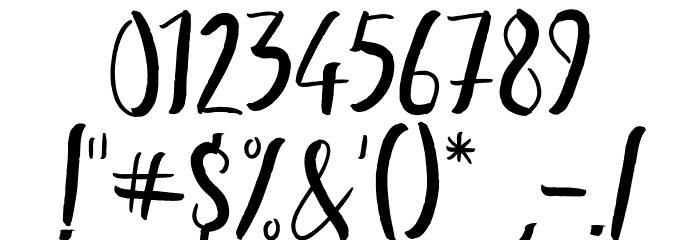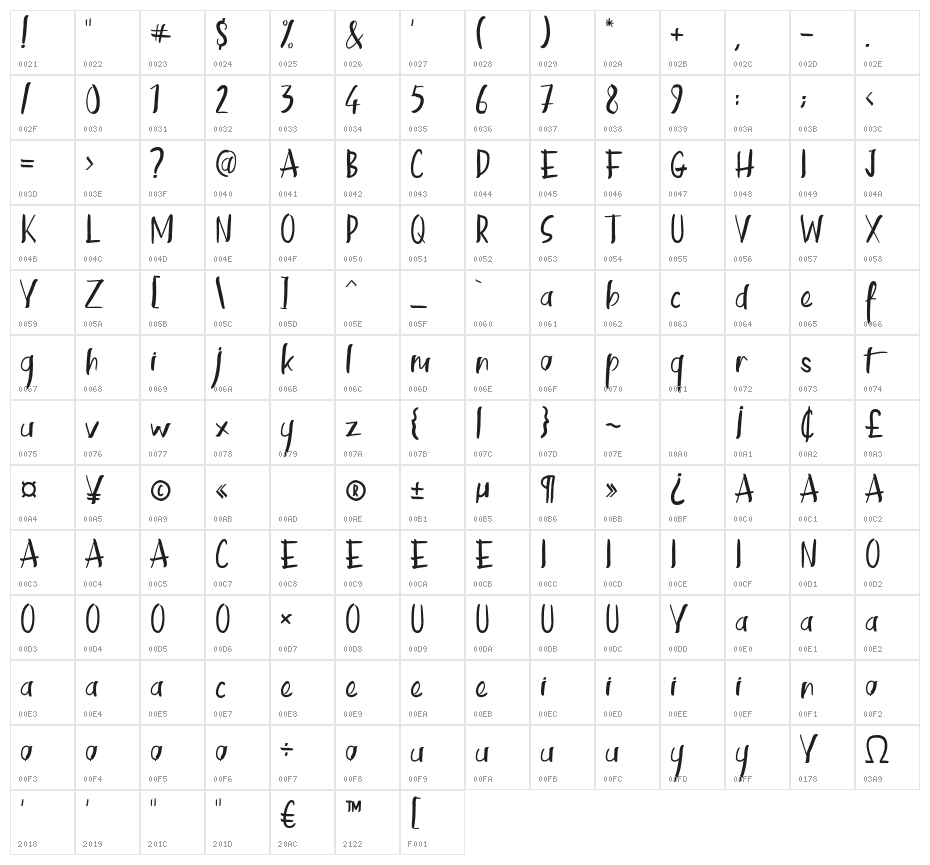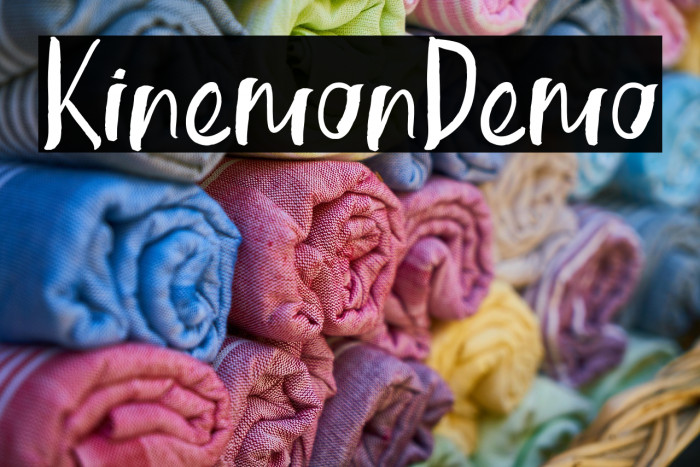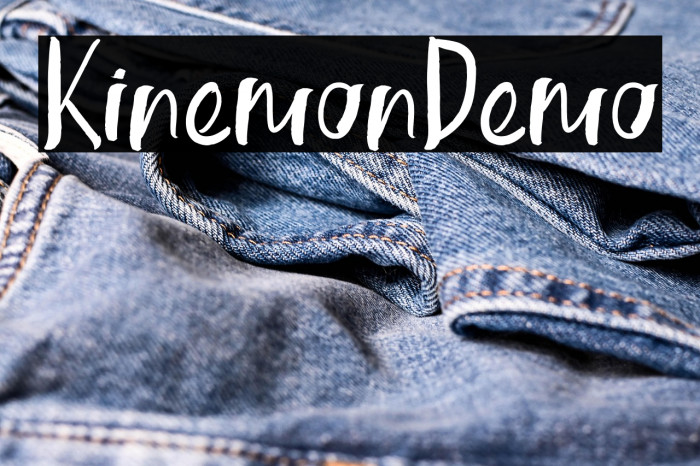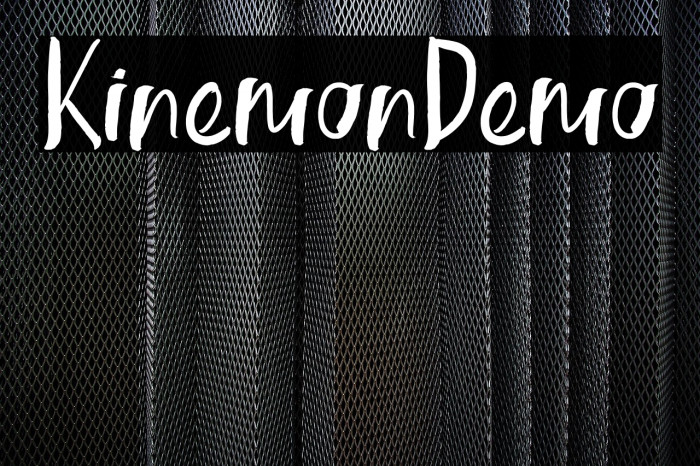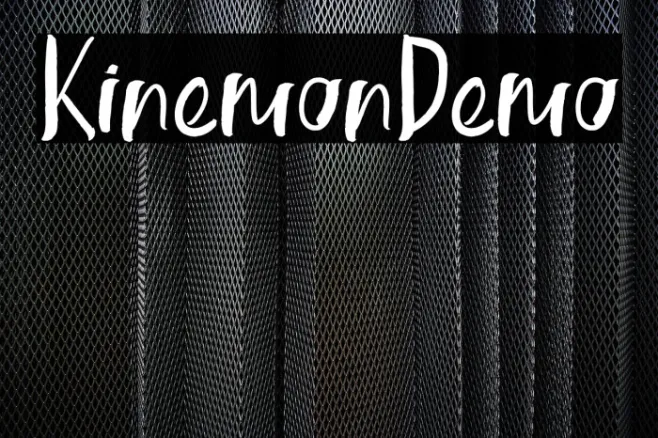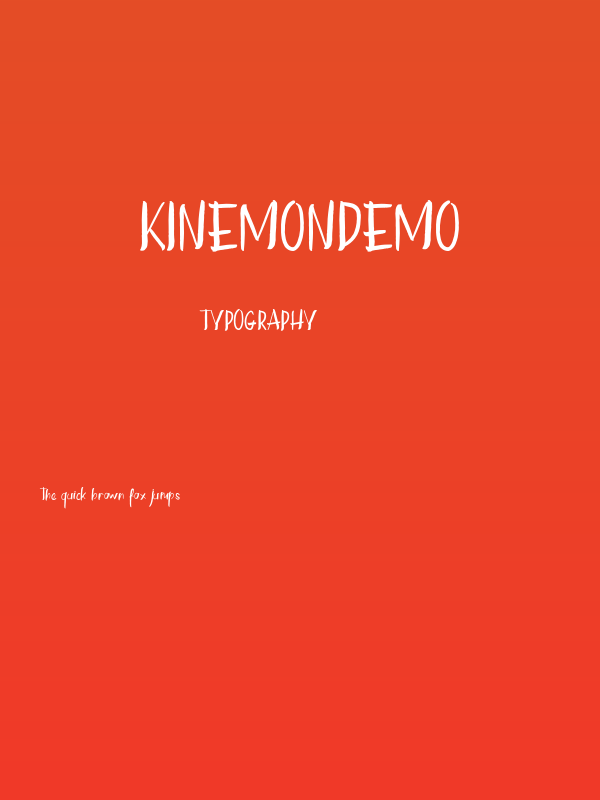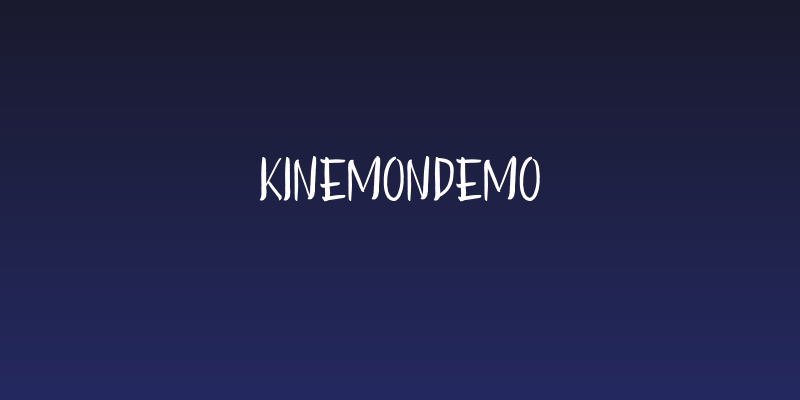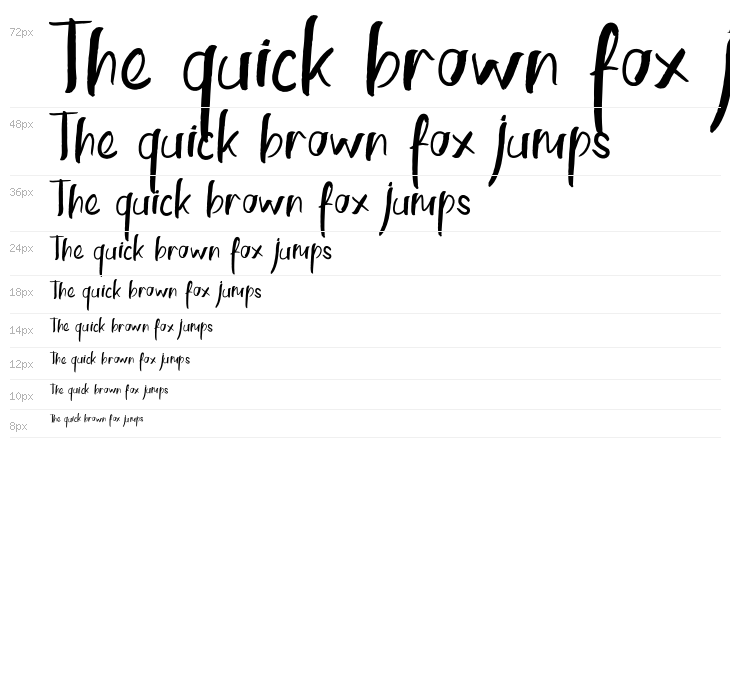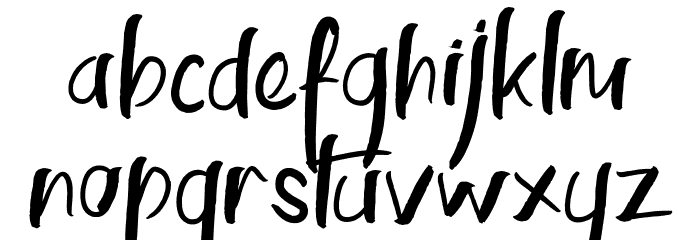
KinemonDemo Font
KinemonDemo Description
This font exhibits a lively and dynamic handwritten style, characterized by its playful and casual appearance. The letters are slightly slanted, giving it a sense of motion and energy. The strokes vary in thickness, adding a touch of spontaneity and personality. The uppercase letters are bold and prominent, while the lowercase letters maintain a consistent flow. Numbers and special characters are crafted with the same energetic flair, making them stand out. This font is perfect for projects that require a personal touch, such as invitations, greeting cards, or creative branding.